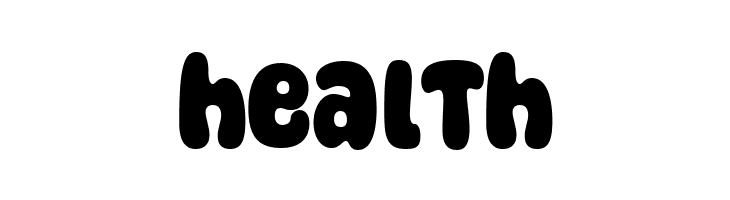
• Tatan Deer Italic Font
A bold, italic script font with a dynamic and flowing style.
• Tate Divine Font
( Alternika )
A gothic, medieval-style font with sharp, elongated strokes and intricate detailing.
• taterTodd TRIAL Font
( JOEBOB graphics - Joe vanderHam - www.joebob.nl )
A bold, playful handwritten font with a casual and friendly style.
• taterTodd_TRIAL Font
( JOEBOB graphics - Joe vanderHam - www.joebob.nl )
A bold, playful handwritten font with rounded strokes and dynamic curves.
• Tatertot Medium Font
( Fonts by Tate Chaffin )
Playful handwritten font with a casual style.
• Tatoo Sailor Font
( Fonts by Juan Casco - www.juancasco.net )
A bold, vintage-style font with a rugged, hand-drawn appearance.
• Tattofoo Trl Font
A bold, expressive script font with dynamic, sweeping strokes and elegant curves.
• Tattoo Boss Monoline Demo Font
• Tattoo Sailor Font
• Tattoo Thinline Regular Font
( Out Of Step Font Company - outofstepfontco.com )
A thin, hand-drawn font with a tattoo-inspired, artistic style.